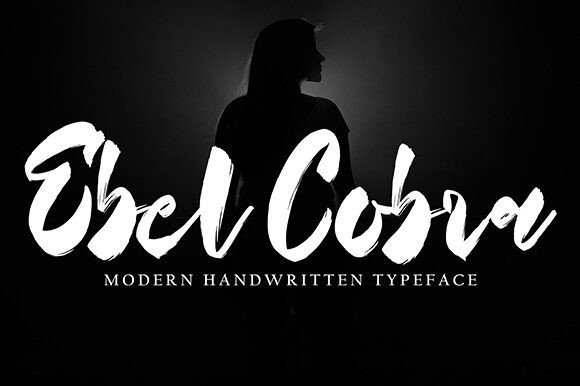
Venture into a world of elegance and sophistication with Ebel Cobra, the enchanting script font that will cast a spell on your designs. With its graceful curves and alluring swashes, Ebel Cobra is not just a font; it's an artistic masterpiece that will elevate your projects to new heights of beauty.
Immerse yourself in the allure of Ebel Cobra, a font carefully crafted to evoke the magic of handwritten calligraphy. Each letter dances across the page like a delicate whisper, carrying with it a sense of timeless grace. Whether you're a seasoned designer or just starting your creative journey, Ebel Cobra will guide you towards captivating designs that leave a lasting impression.
Unleash your creativity and let Ebel Cobra transform your vision into reality. Its versatility knows no bounds, making it the perfect choice for a wide range of projects. From elegant wedding invitations to captivating social media posts, Ebel Cobra will add a touch of finesse to every word you write.
Step into a realm where imagination reigns supreme. Ebel Cobra is the key to unlocking a world of endless possibilities, where your designs will blossom into breathtaking works of art. Let your creativity soar and let Ebel Cobra be your muse as you craft designs that ignite the senses and leave your audience spellbound.